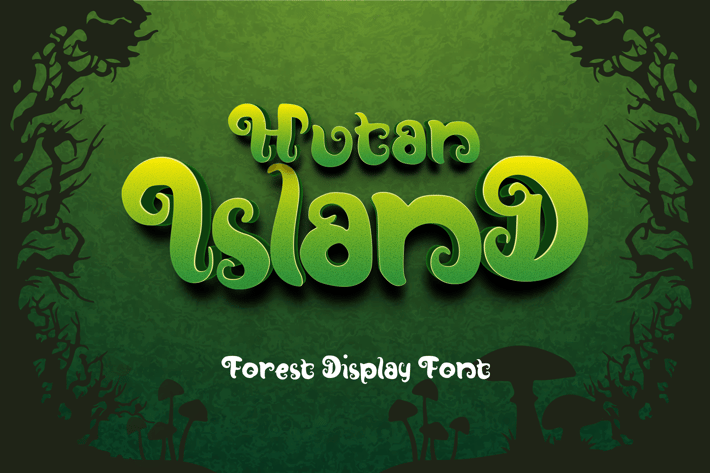
Hutan-Island Forest Display Font
Growht Forest Display Font, is our new font and suitable for mockup or any work.
Great for
Sticker, Invitation Card, Brochure, etc.